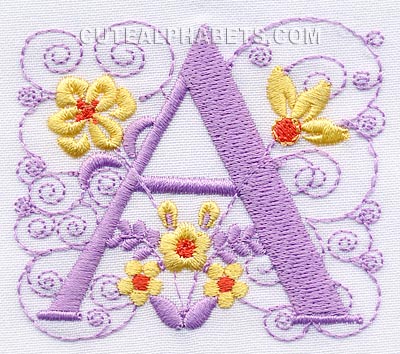
It was an embossed rectangle with some scrolling. I just can't imagine where it went. Can anyone give me any idea where I can find it. I have looked at every alphabet I can find on this site.
Purple-flowers
MaryJo, That font was from Cute Alphabets, a sister site. Maybe this will help you find it! If not, it is still available on Cute Alphabets. com